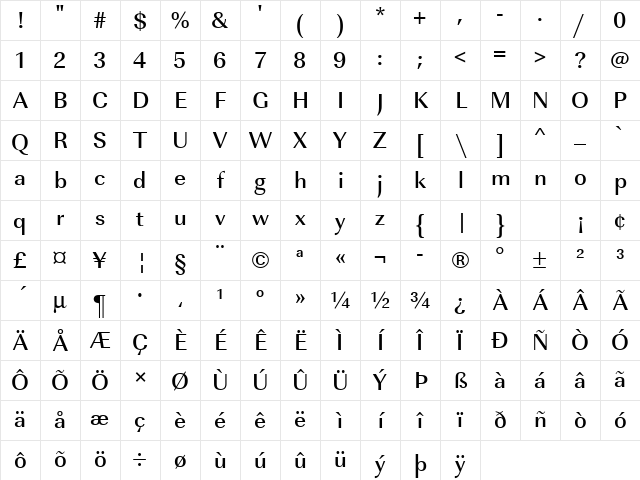
URWImperialTMed Regular
Design Context for URWImperialTMed
URWImperialTMed is a composed and adaptable typeface that performs quietly and consistently across a wide range of design contexts.
Pro Tip: Use URWImperialTMed in both headline and body roles to test its range before committing to a single application.